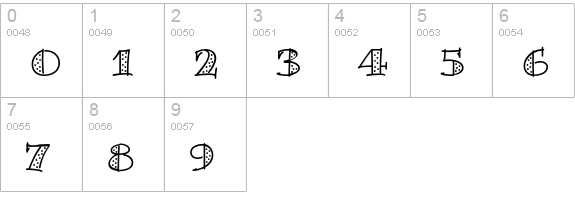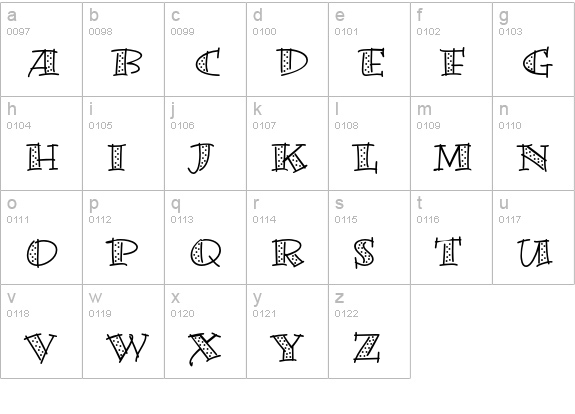
Bermuda LP Std Dots font is a charming and playful typeface that adds a touch of whimsy to any design project. With its unique dotted letterforms, this font is perfect for creating eye-catching headlines, posters, and logos. The playful nature of Bermuda LP Std Dots font makes it suitable for a variety of creative projects, from children's books to party invitations. The best part? Bermuda LP Std Dots font is completely free to download at FontsMarket.com. Whether you're a professional designer looking to add a fun twist to your work, or someone simply looking to experiment with a new font, Bermuda LP Std Dots is the perfect choice. Download it today and let your creativity run wild with this delightful and versatile typeface.